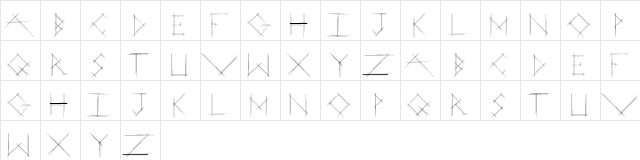
LinearCurve Regular
Design Context for LinearCurve Typeface
LinearCurve is a composed and adaptable typeface that performs quietly and consistently across a wide range of design contexts.